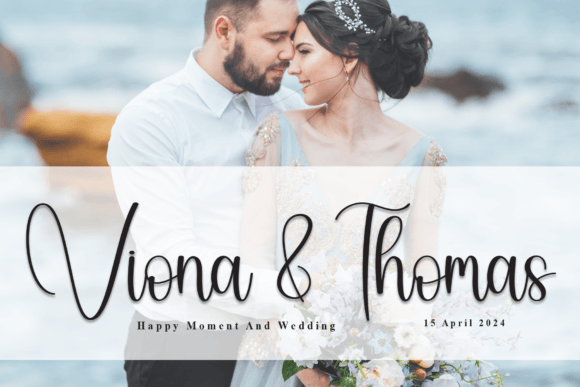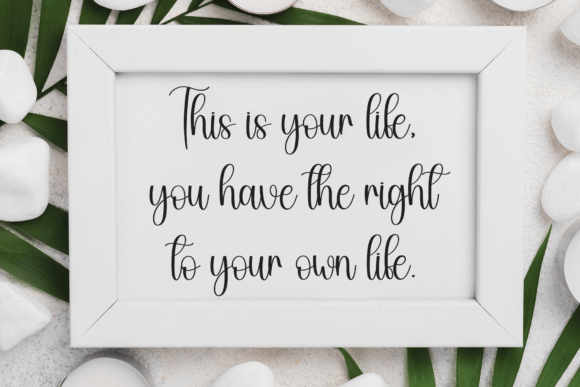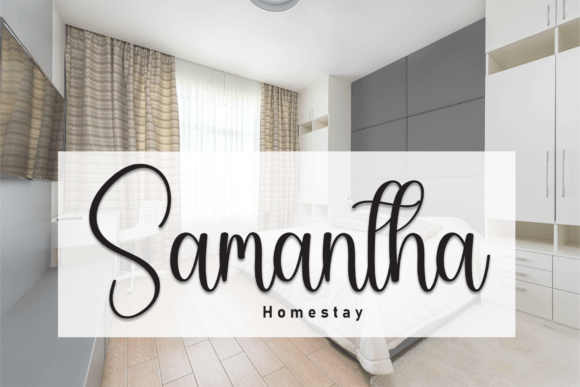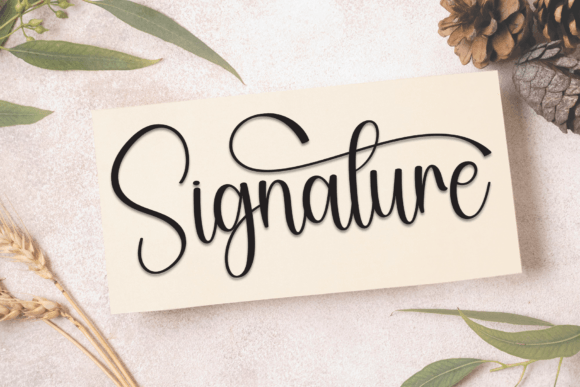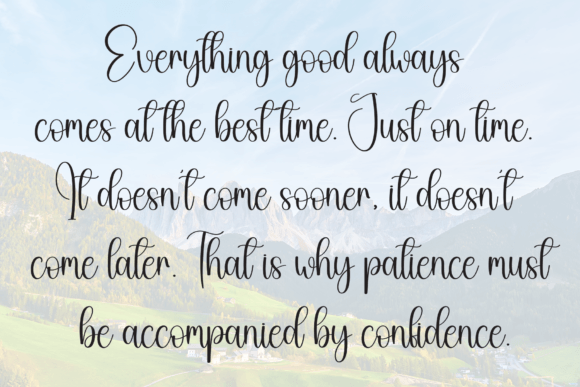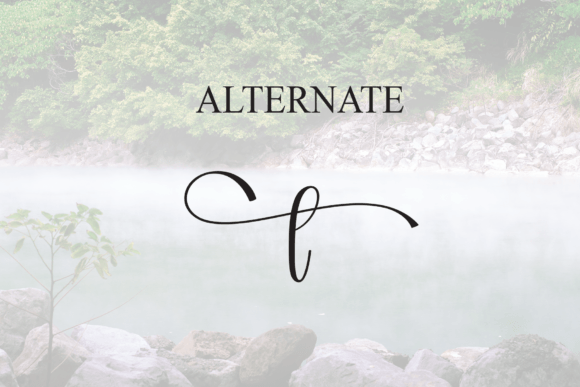
The Elegance of Brimstone Font: A Designer’s Delight
I’ll never forget the time I was working on a wedding invitation project, and my client asked for a font that would make their special day feel like a fairytale. I scoured the internet, tried out dozens of fonts, but nothing seemed quite right. That was until I stumbled upon Brimstone Font. 💕
This stunning script font has been a game-changer for me, and I’m excited to share its beauty with you. In this article, we’ll dive into the world of Brimstone Font, exploring its features, how to use it, and what makes it so special.
An Honest Review of Brimstone Font
• 💫 Elegant and stylish: Brimstone Font is perfect for designs that need a touch of sophistication.
• ✅ Versatile: Use it for wedding invitations, thank you cards, quotes, greeting cards, logos, business cards, and more.
• 🔥 Unique character: The font’s distinctive style sets it apart from other script fonts.
• 👍 Easy to read: Despite its elegant nature, Brimstone Font remains clear and readable.
While Brimstone Font is an excellent choice, there are a few things to keep in mind:
• 🤔 Limited use for body text: Due to its script nature, Brimstone Font is best suited for headings and titles.
• ⚠️ May not work well with small font sizes: To maintain its elegance, use Brimstone Font at larger font sizes.
The Backstory of Brimstone Font
Brimstone Font was designed with the intention of creating a beautiful, elegant script font that would add a touch of sophistication to any design. Its creator drew inspiration from classic calligraphy and modern typography, resulting in a unique and versatile font.
Font Name Brimstone Font
Author Roronoa zoro.S.P.D
Q: What type of designs is Brimstone Font best suited for?
A: Brimstone Font is perfect for designs that need a touch of elegance and sophistication, such as wedding invitations, thank you cards, quotes, greeting cards, logos, and business cards.
Q: Can I use Brimstone Font for body text?
A: While Brimstone Font is an excellent choice for headings and titles, it’s not recommended for body text due to its script nature.
Q: Is Brimstone Font easy to read?
A: Yes, despite its elegant nature, Brimstone Font remains clear and readable, making it perfect for designs that need a touch of sophistication.